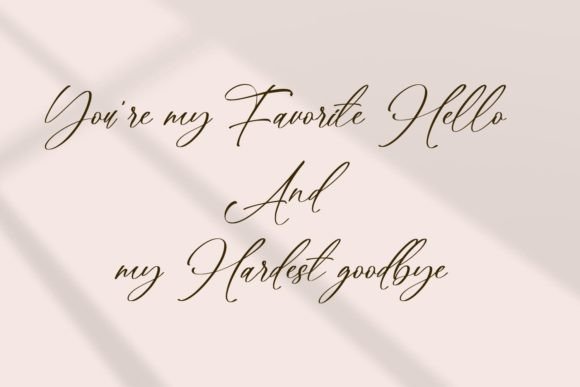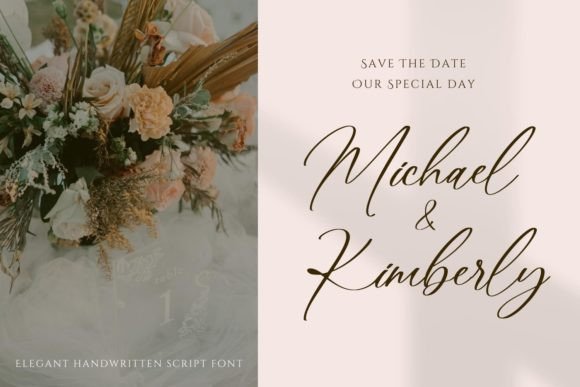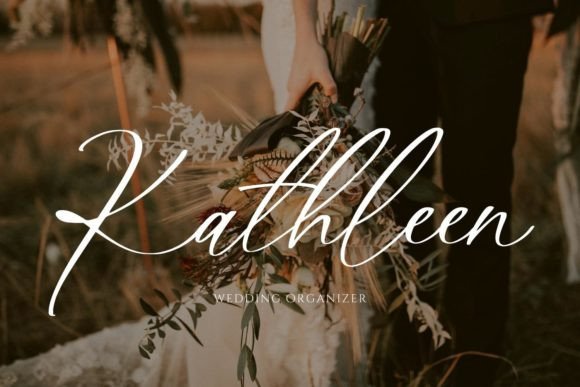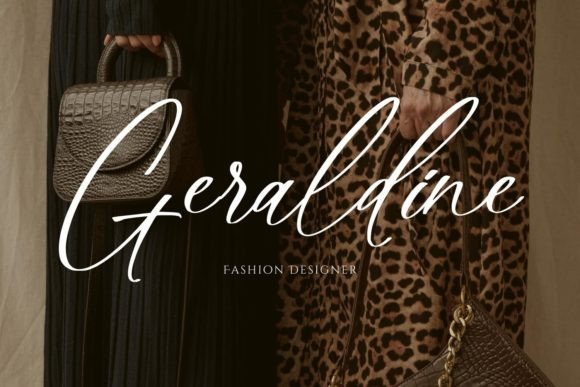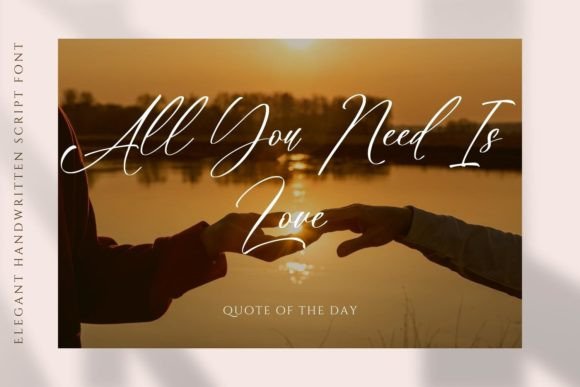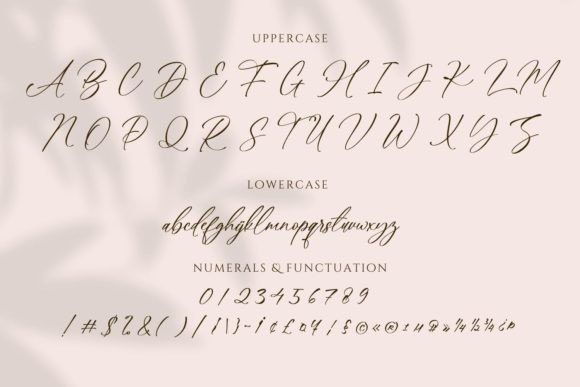
Discover the Elegance of Brenda Harmony Font
Are you looking for a font that exudes sophistication and elegance? Look no further than Brenda Harmony, a stunning script handwriting signature font that is sure to captivate your audience. With its beautiful style and versatility, this font is perfect for creating exquisite wedding invitations, eye-catching stationary art, and engaging social media posts.
A Font that Speaks Elegance
Brenda Harmony is a script handwriting signature font that boasts a unique and captivating elegance. Its beautiful style is reminiscent of handwritten calligraphy, making it perfect for designs that require a touch of sophistication. Whether you’re a designer, crafter, or DIY enthusiast, this font is sure to inspire your creativity.
Key Features of Brenda Harmony
So, what makes Brenda Harmony stand out from other fonts? Here are some of its key features:
- Full Character Set: Brenda Harmony features a full character set, including uppercase and lowercase letters, numbers, punctuations, ligatures, and multilingual support.
- Multilingual Support: This font supports multiple languages, making it perfect for designers and crafters who work with clients from diverse backgrounds.
Perfect for Wedding Invitations and Stationary Art
Brenda Harmony is particularly well-suited for creating exquisite wedding invitations and stationary art. Its elegant style and sophisticated flair make it perfect for:
- Wedding invitations and save-the-date cards
- Stationary art, such as greeting cards and postcards
- DIY craft projects, such as scrapbooking and journaling
Engage Your Audience with Social Media Posts
In today’s digital age, social media is an essential platform for connecting with your audience. Brenda Harmony can help you create engaging social media posts that stand out from the crowd. Use this font to:
- Create eye-catching graphics and quotes
- Design engaging Facebook and Twitter headers
- Develop a consistent brand identity across social media platforms
Unleash Your Creativity with Brenda Harmony
With Brenda Harmony, the possibilities are endless. This font is perfect for designers, crafters, and DIY enthusiasts who want to add a touch of sophistication to their designs. Whether you’re creating wedding invitations, stationary art, or social media posts, Brenda Harmony is sure to inspire your creativity.
In conclusion, Brenda Harmony is a stunning script handwriting signature font that is sure to captivate your audience. With its beautiful style, full character set, and PUA encoding, this font is perfect for creating exquisite wedding invitations, eye-catching stationary art, and engaging social media posts. Unleash your creativity with Brenda Harmony and bring a touch of sophistication to your designs.